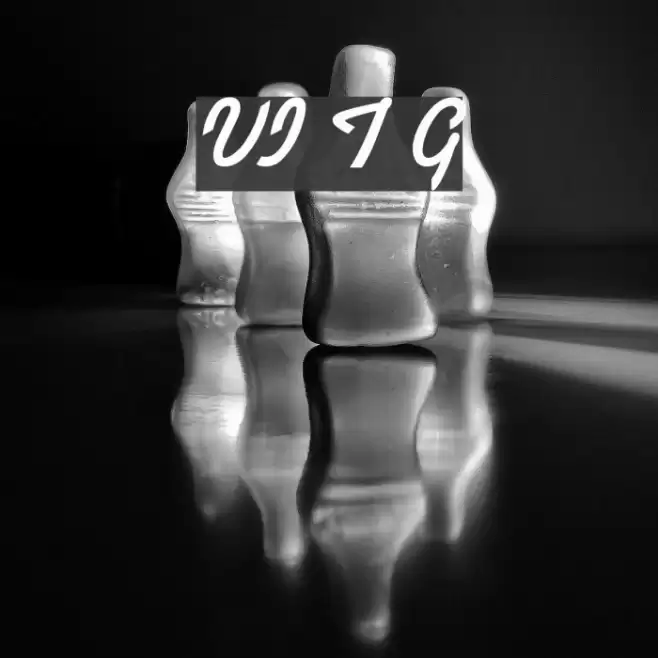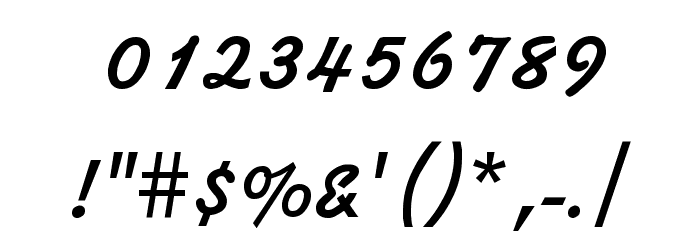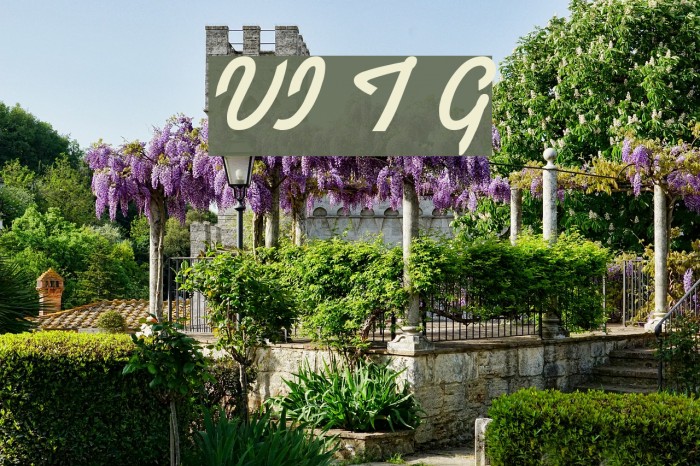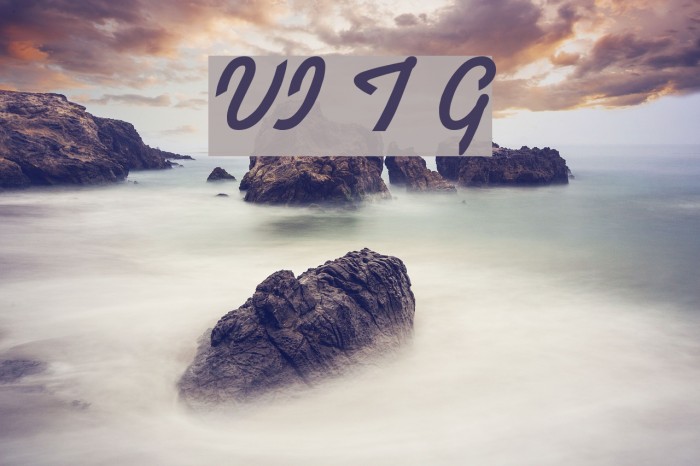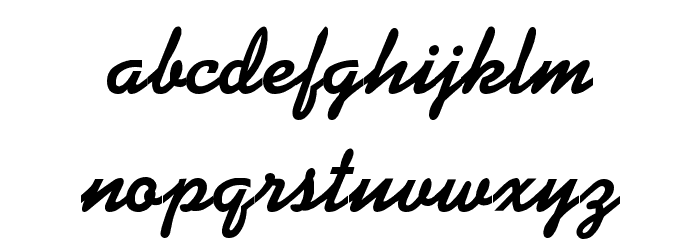
VI Ti Gon Font
VI Ti Gon Description
This font features a dynamic and fluid script style, characterized by its elegant, flowing curves and smooth connections between letters. The uppercase letters are bold and slightly slanted, giving a sense of movement and sophistication. The lowercase letters maintain a consistent style, with rounded edges and a harmonious balance between each character. The numerals are clear and legible, matching the overall aesthetic of the font. Special characters are well-integrated, maintaining the script's fluidity and style. This font exudes a sense of elegance and creativity, making it ideal for projects that require a personal touch.
A dynamic and elegant script font with flowing curves and smooth connections from Uncategorized fonts.
- Proposed Projects: Ideal for wedding invitations, greeting cards, branding, and logo design.
- Overall Style: Elegant, Creative
- Use Case: Logos, Invitations, Branding